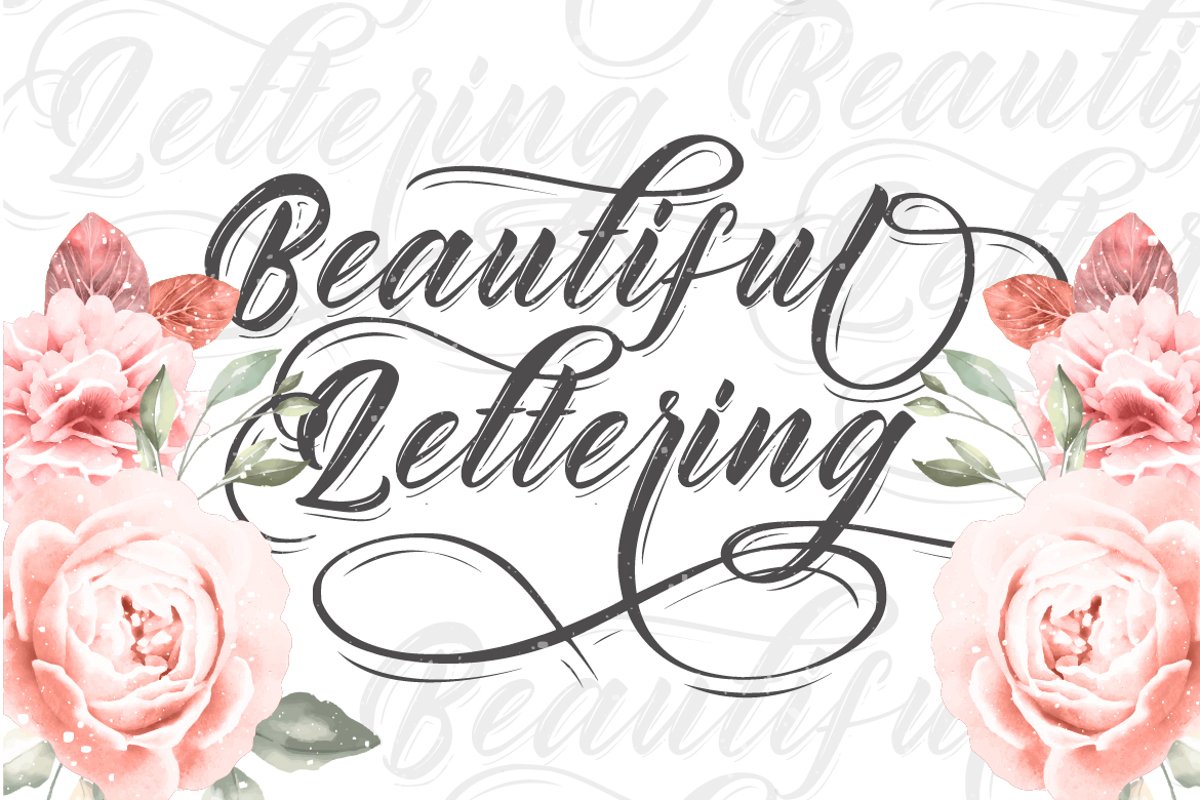
Rhinatta Script
Introducing, our latest stuff, the Rhinatta Script
This font is suitable for wedding invitation, poster, quote, label, card name, and other stuff
- Alternate Stylistic Character